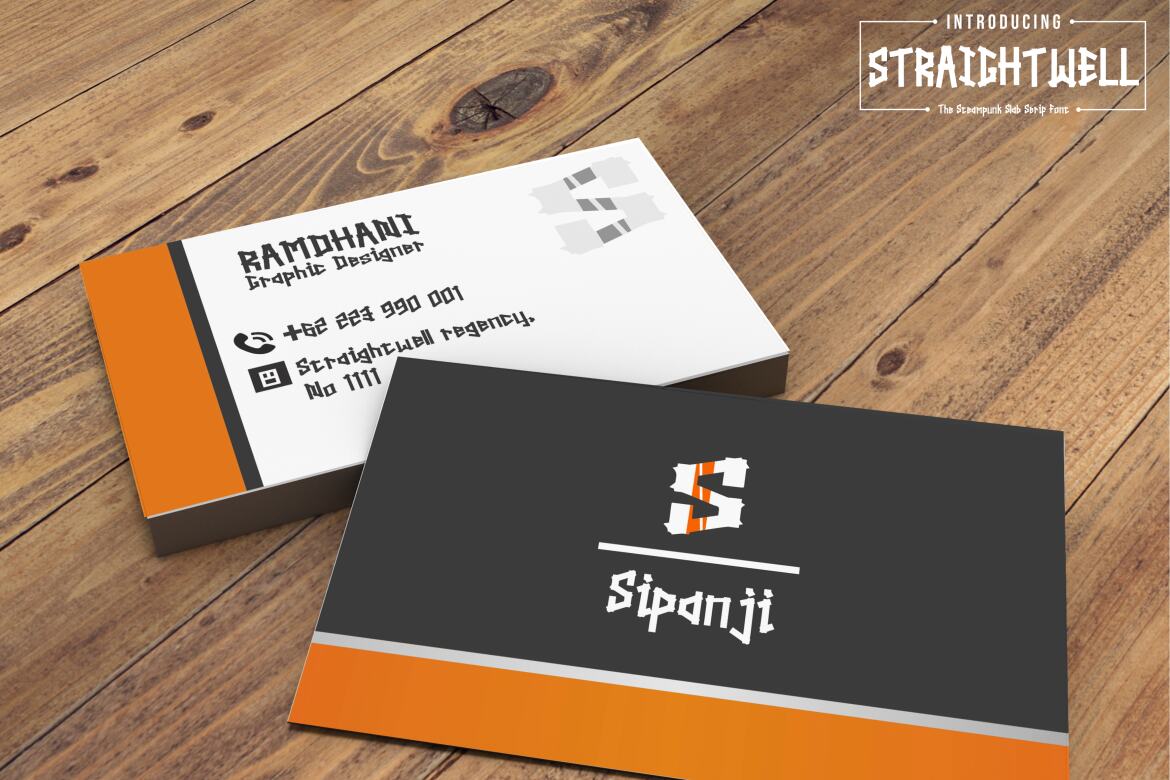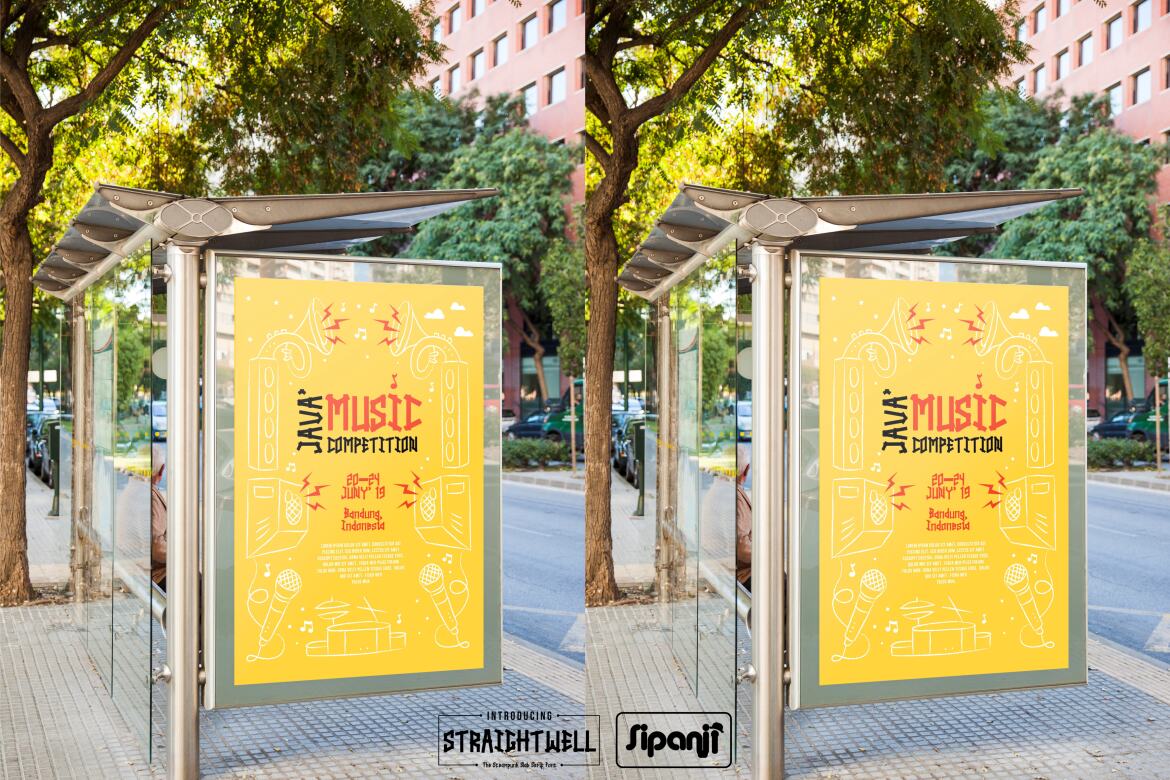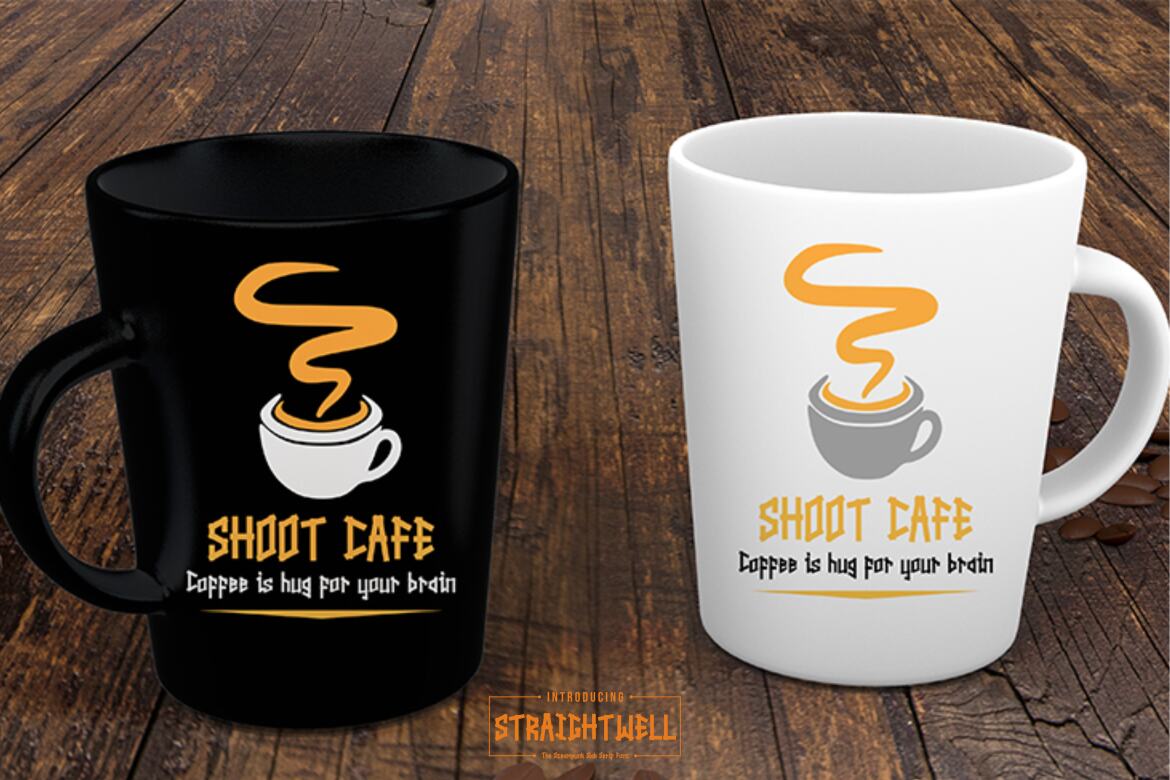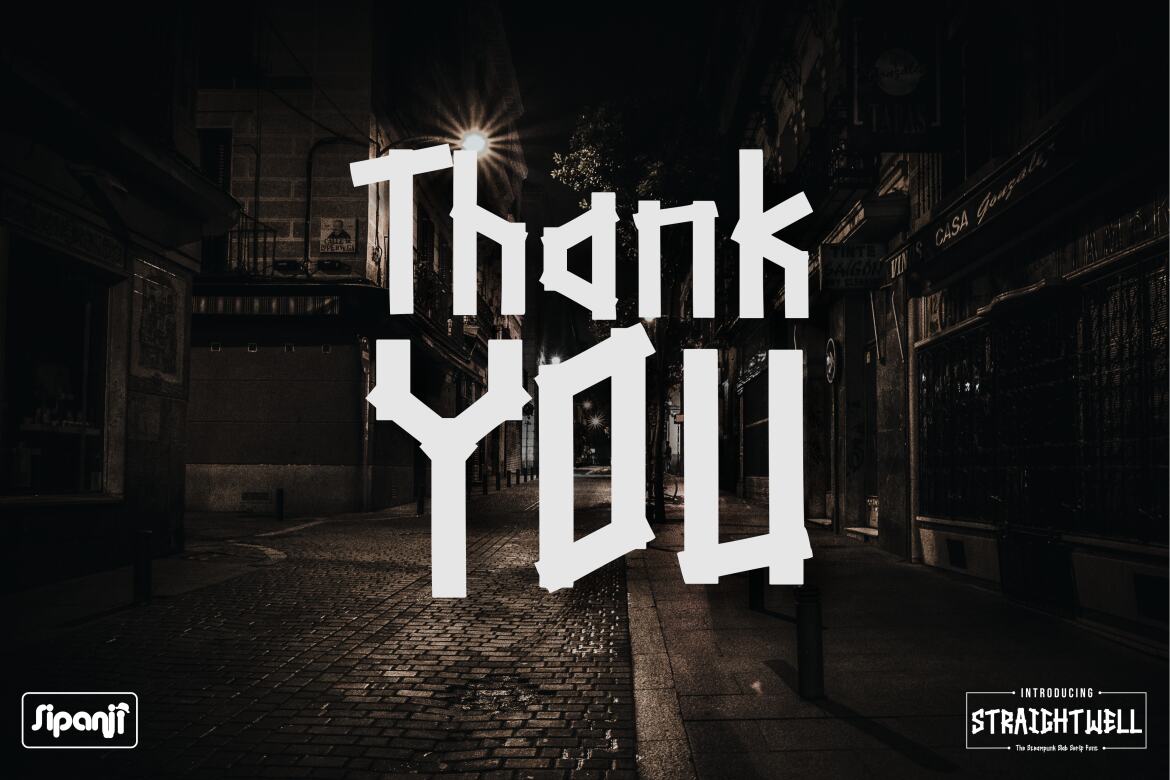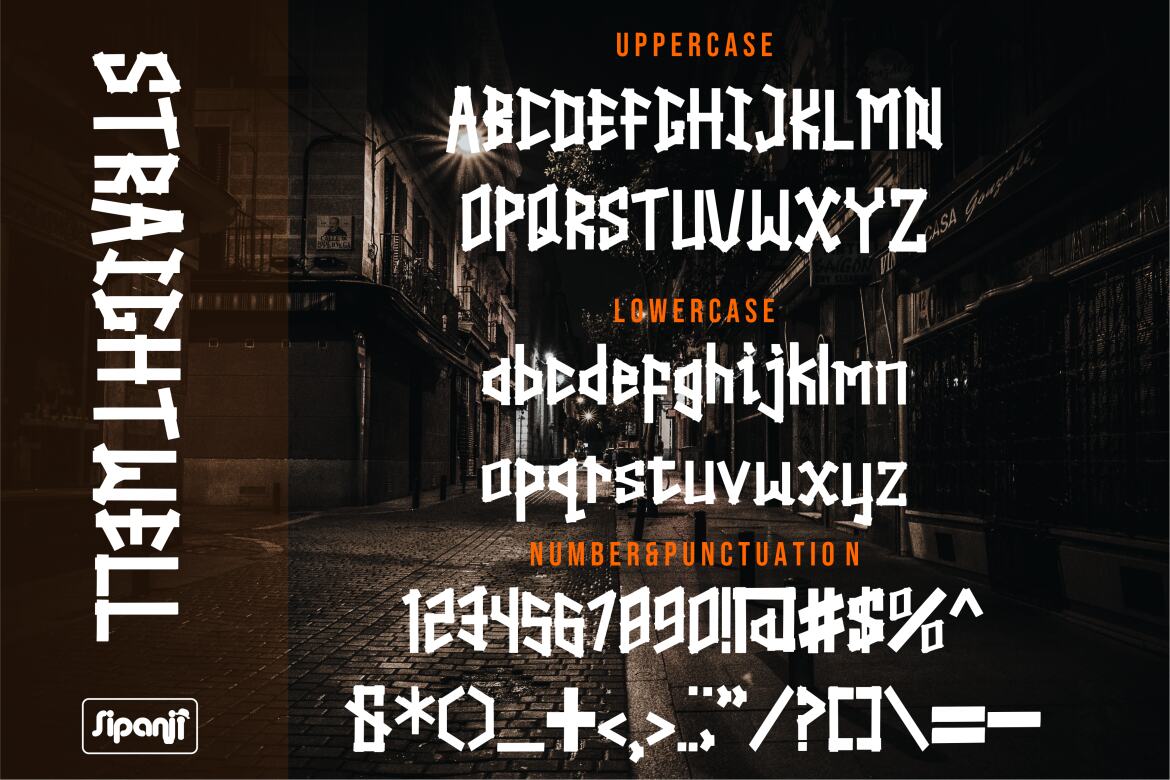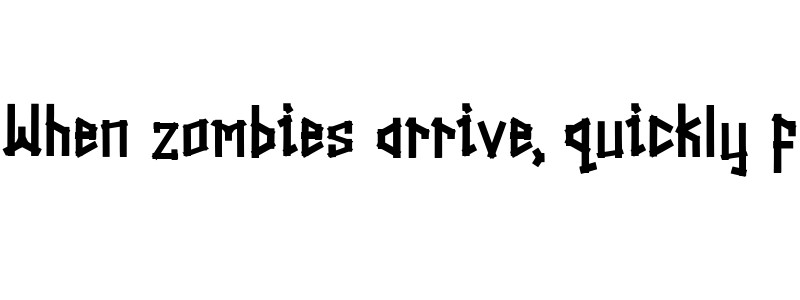
Straightwell - Free Font
Straightwell
Straightwell is a straightforward and modern sans serif font with a bold feel. Get inspired by its unique characters